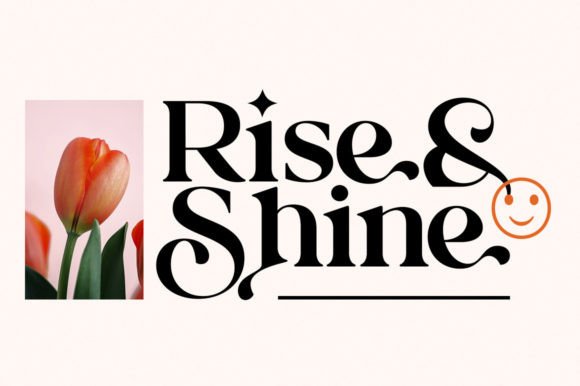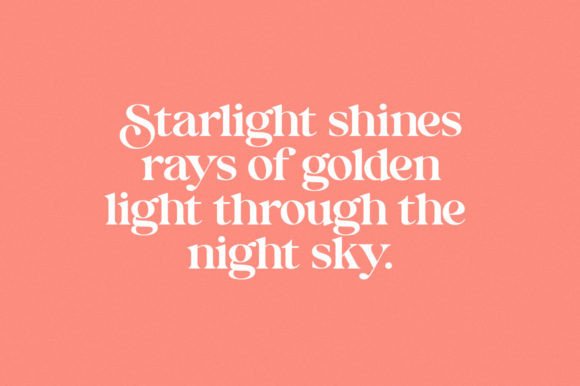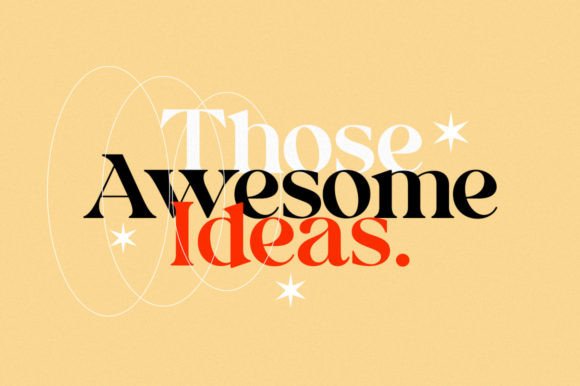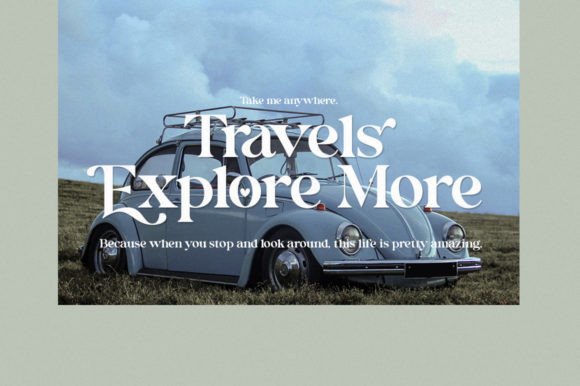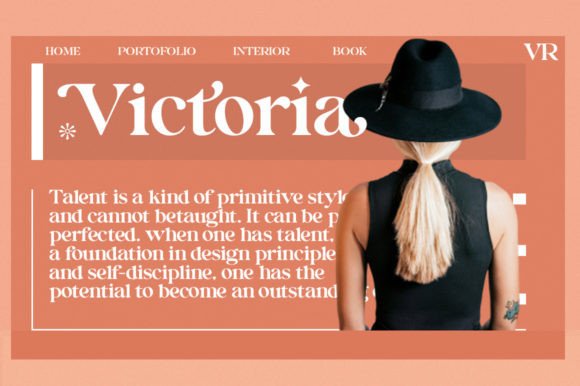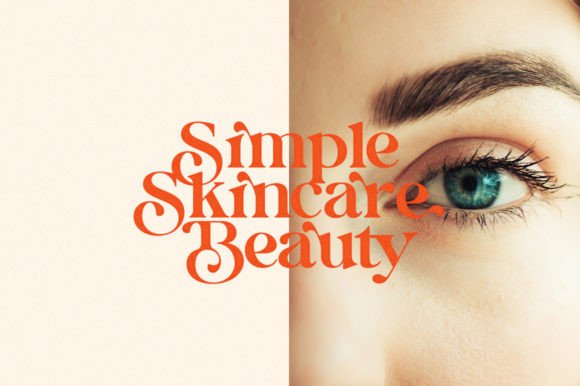
The Designer’s Delight: Binter Display Font
I still remember the time I was working on a project for a high-end fashion brand, and I was struggling to find the perfect font to match their sophisticated and elegant vibe. The client was specific about wanting a font that exuded luxury and refinement, but everything I tried seemed to fall flat. That’s when I stumbled upon Binter Display, and it was love at first sight! 💕
This beautiful typeface has been a game-changer for me, and I’m excited to share its charm with you. In this article, we’ll dive into the world of Binter Display, exploring its features, how to use it, and what makes it so special.
• 💯 Sophisticated and elegant design: Binter Display’s classic, refined letters are inspired by traditional typography, making it perfect for editorial design, branding, and print materials.
• 🎨 Highly customizable: With PUA encoding, you can access all delightful glyphs and swashes effortlessly, adding a touch of personality to your designs.
• 📚 Timeless appearance: Binter Display’s graceful and timeless design ensures that your projects will stand the test of time, looking beautiful for years to come.
• ✅ Easy to read: Despite its elegant design, Binter Display remains highly legible, making it perfect for body text and headlines.
While Binter Display is an amazing font, there are a few things to keep in mind:
• 🤔 PUA encoding: While PUA encoding provides a lot of flexibility, it can also be a bit tricky to navigate for beginners. Don’t worry, with a little practice, you’ll get the hang of it!
• ⚠️ Limited availability: As a specialty font, Binter Display might not be as widely available as some other fonts. However, it’s definitely worth the search!
While the origins of Binter Display are shrouded in mystery, it’s clear that the designer was inspired by traditional typography and a passion for elegance and refinement. Imagine a designer, surrounded by vintage typography books and antique printing equipment, pouring their heart and soul into creating a font that’s both timeless and sophisticated.
What is PUA encoding? PUA (Private Use Area) encoding allows font designers to include additional glyphs and characters that aren’t part of the standard Unicode character set. In the case of Binter Display, PUA encoding provides access to a wide range of swashes and glyphs.
Is Binter Display suitable for body text? While Binter Display is elegant and refined, it’s primarily designed for headlines and display text. For body text, you may want to choose a font with better legibility at smaller sizes.